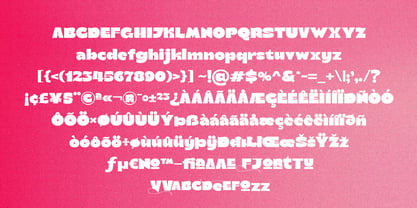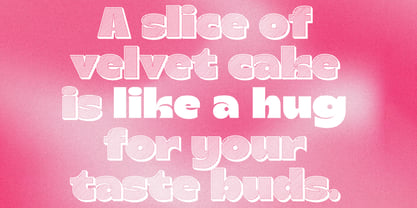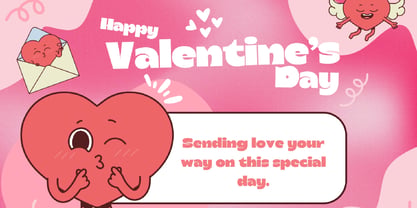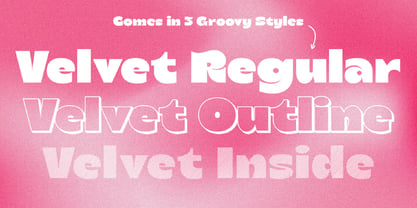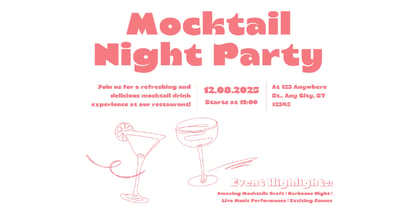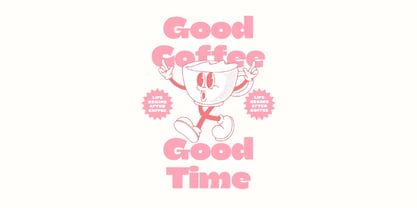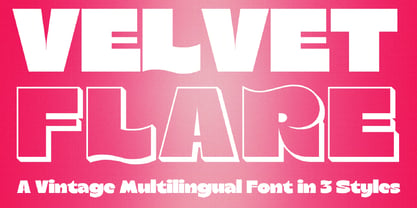
Velvet Flare
The Velvet Flare Font Family was designed by Igor Ovsyannykov and published by Hipfonts. Velvet Flare contains 3 styles and family package options. More about this family
Velvet Flare is a stunning vintage-inspired typeface with a modern twist, designed to bring timeless sophistication to any project. With its graceful curves, bold presence, and a hint of retro charm, this font effortlessly balances classic aesthetics with contemporary style. Whether you're designing for branding, editorial layouts, or eye-catching social media graphics, Velvet Flare offers the perfect blend of nostalgia and freshness.
This versatile typeface comes in three distinct styles—Regular, Outline, and Inline—allowing you to mix and match for a truly dynamic look. The Regular style delivers bold impact, perfect for headlines and branding, while the Outline and Inline variations add depth and character, making them ideal for stylish logos, posters, and packaging. No matter the application, Velvet Flare ensures your typography stands out with elegance and personality.
With full multilingual support, this typeface is crafted to reach a global audience without sacrificing its signature charm. Whether you’re creating a chic brand identity, a sophisticated event invitation, or a fashion-forward editorial spread, Velvet Flare provides the perfect touch of vintage allure with a modern edge.